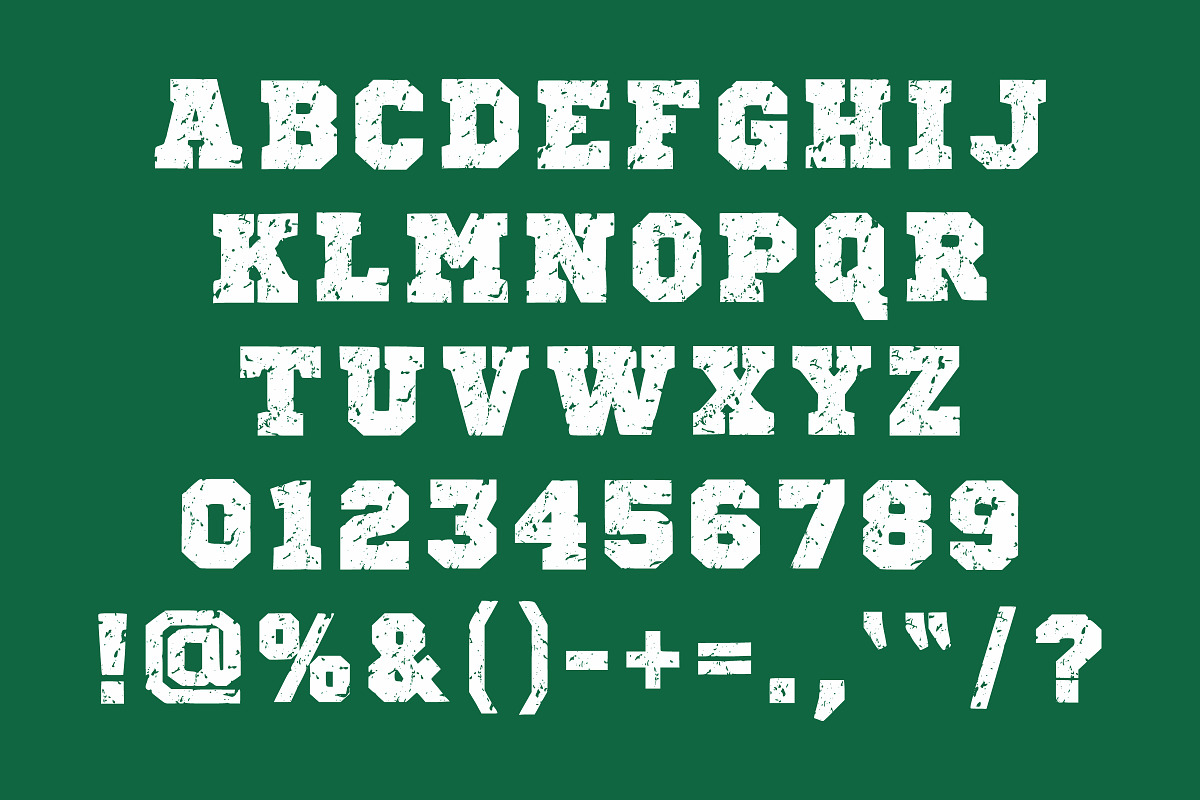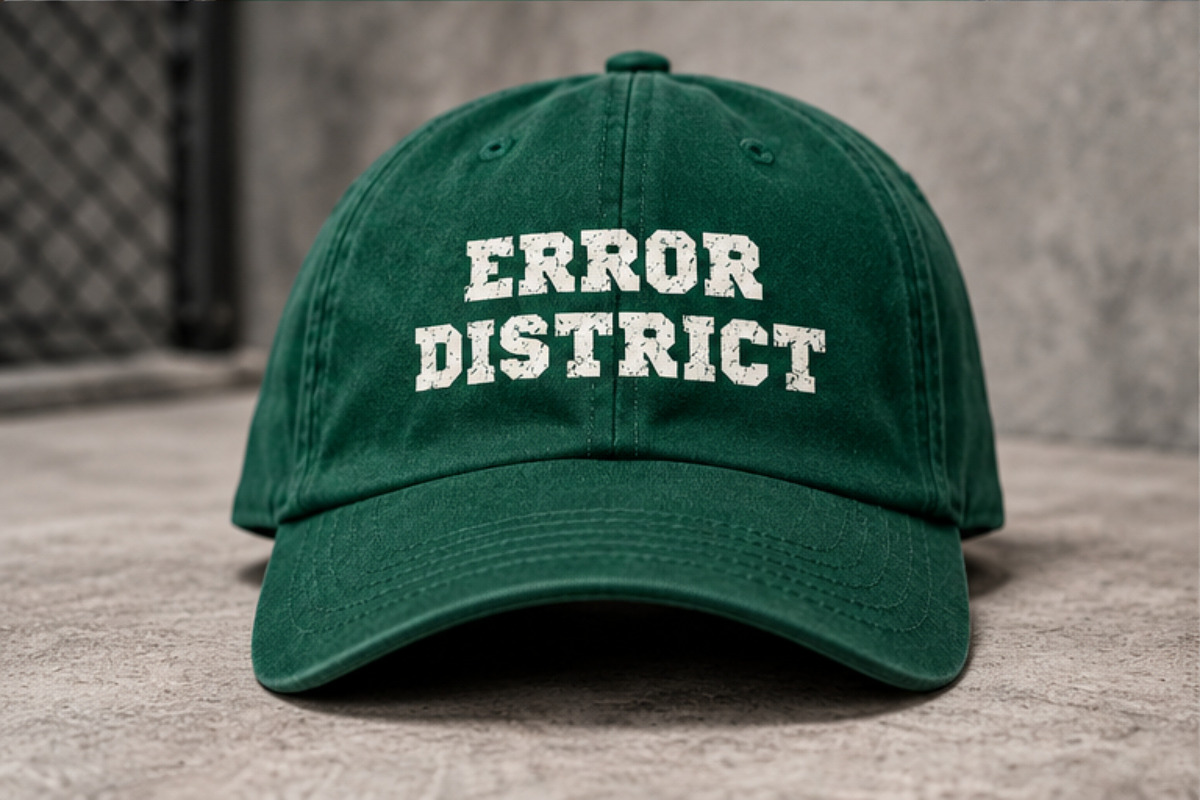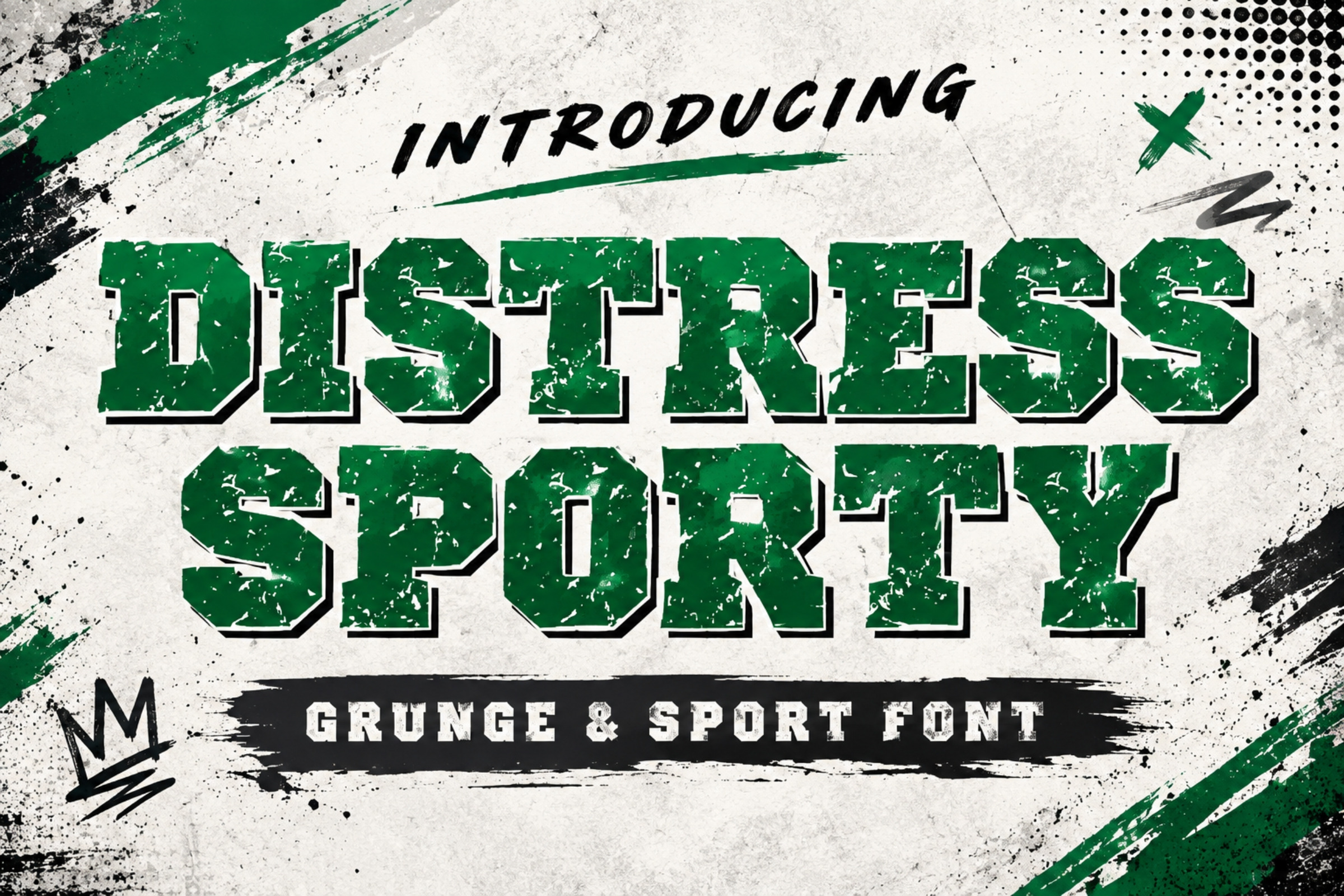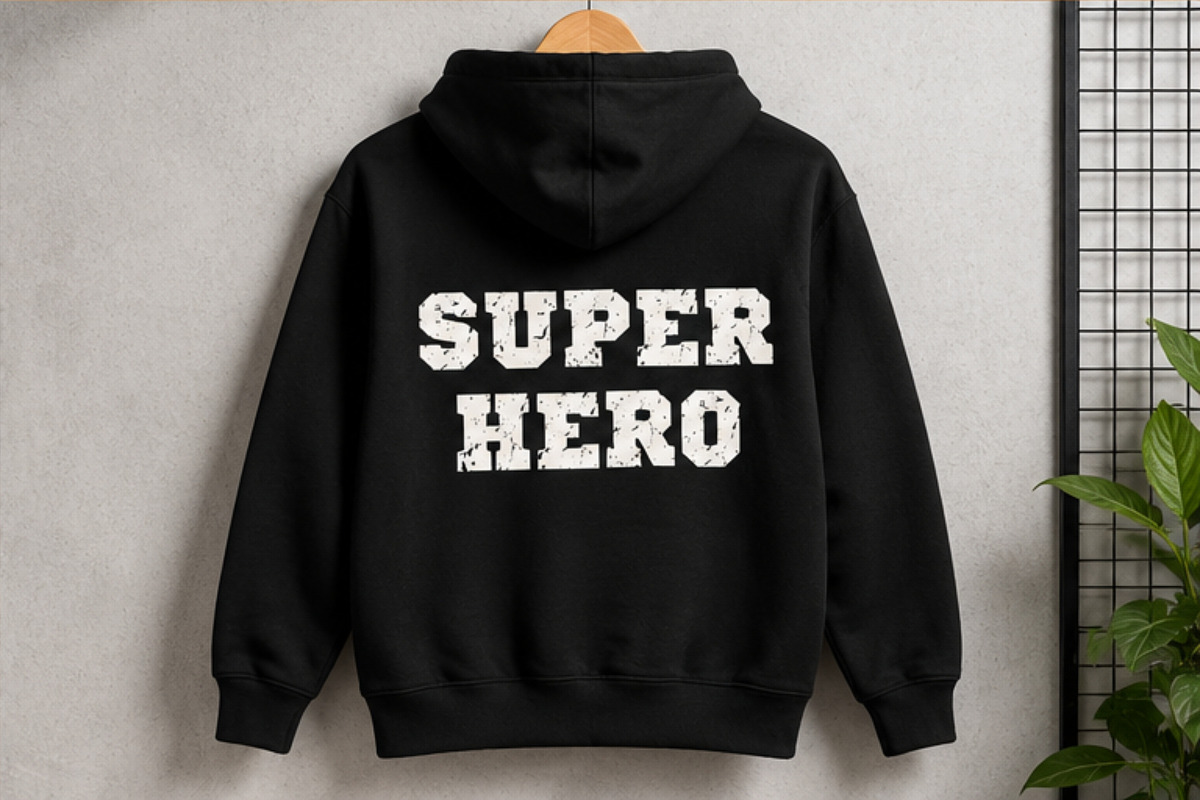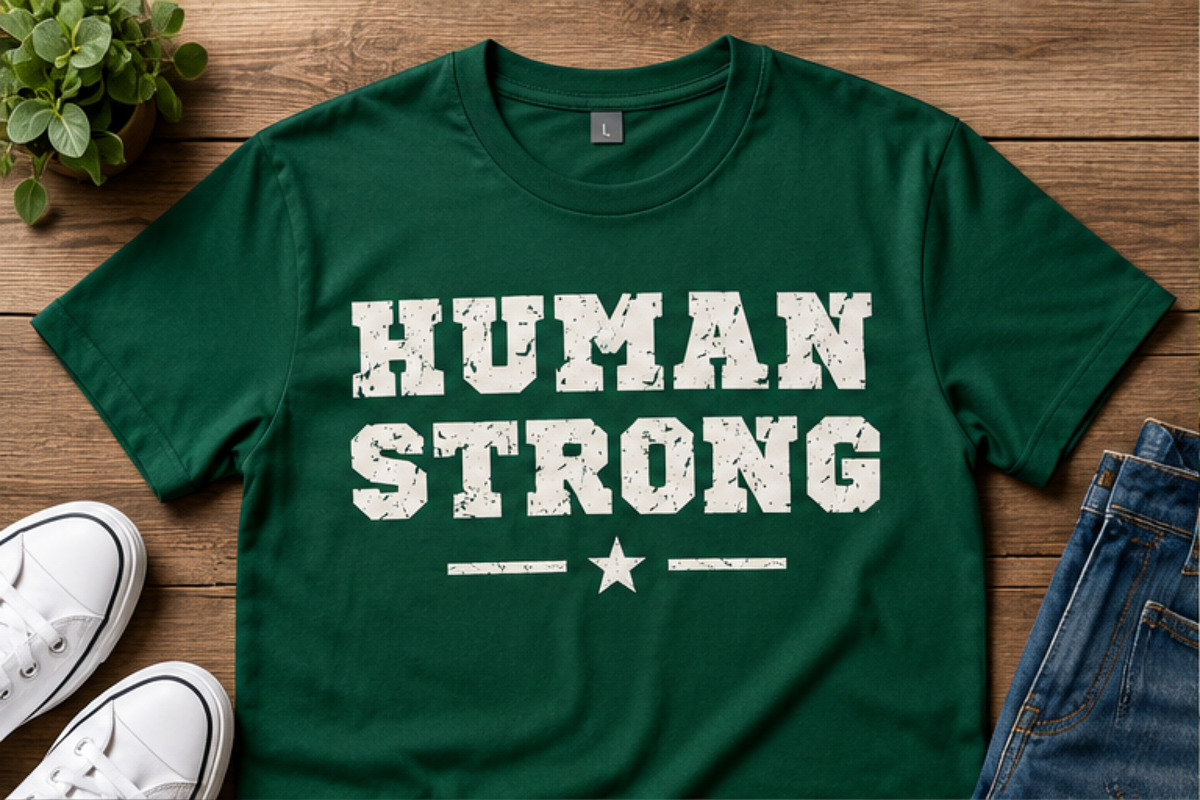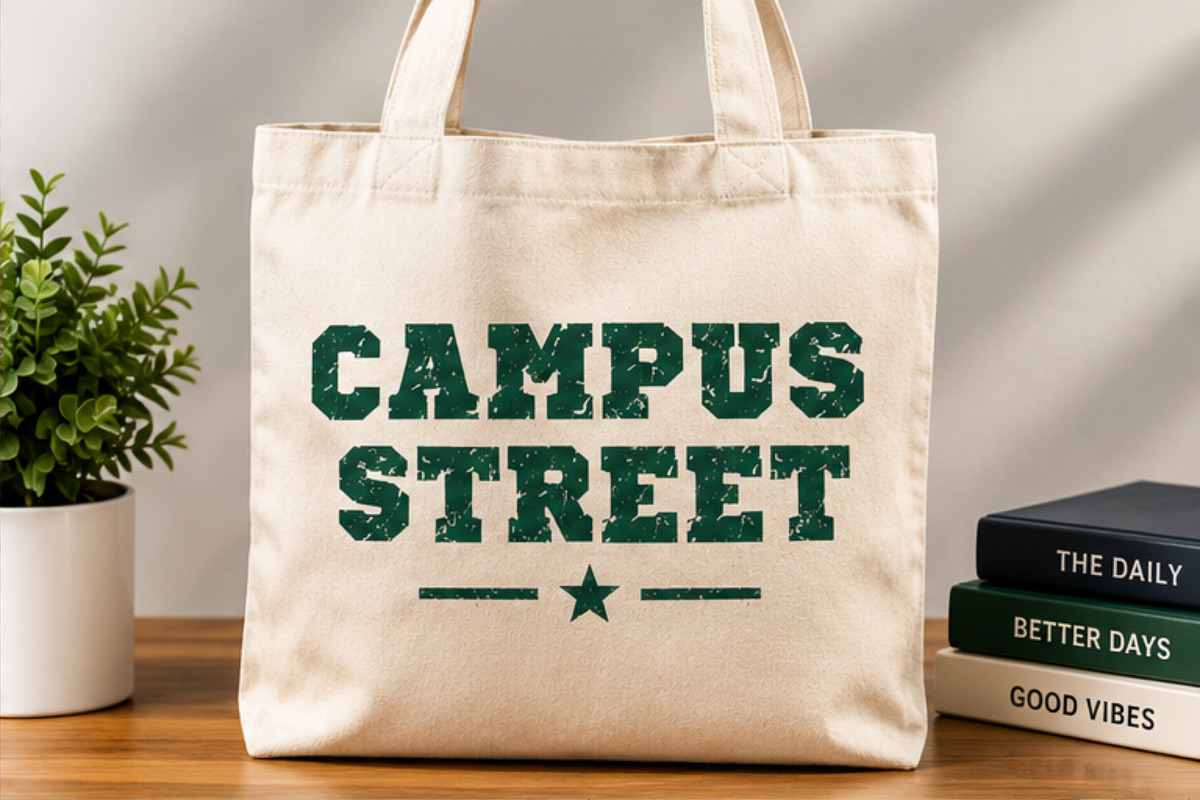
Distress Sporty Font – Bold Athletic
Distress Sporty Font is a bold and dynamic display typeface featuring a distressed, rugged texture that brings an authentic athletic and vintage sports aesthetic to your designs. Its strong letterforms are perfect for sports branding, team jerseys, racing graphics, merchandise, posters, logos, apparel, and energetic promotional designs.
Designed to make a powerful visual impact, this sporty distressed font works beautifully for both modern athletic projects and retro-inspired sports artwork.
PERFECT FOR • Sports logos and team branding • Jersey and apparel designs • Baseball, football, basketball & racing graphics • Gym and fitness branding • Sports posters and flyers • T-shirt designs • Stickers and merchandise • Vintage athletic designs • Racing and motorsport graphics • Typography posters • Badge and emblem designs • Social media graphics • Cricut & Silhouette projects • Print-on-demand products
STYLE Bold • Sporty • Athletic • Distressed • Vintage • Rugged • Dynamic • Strong • Retro • Display